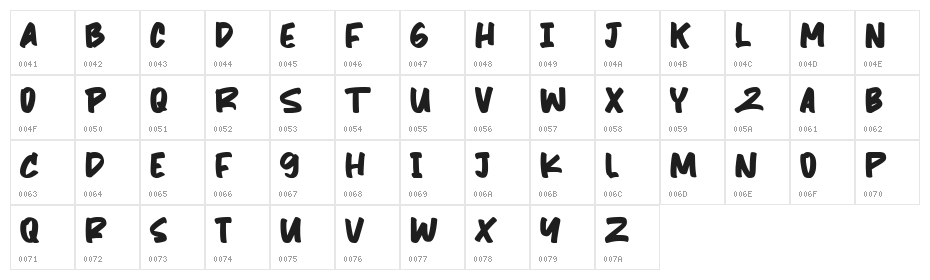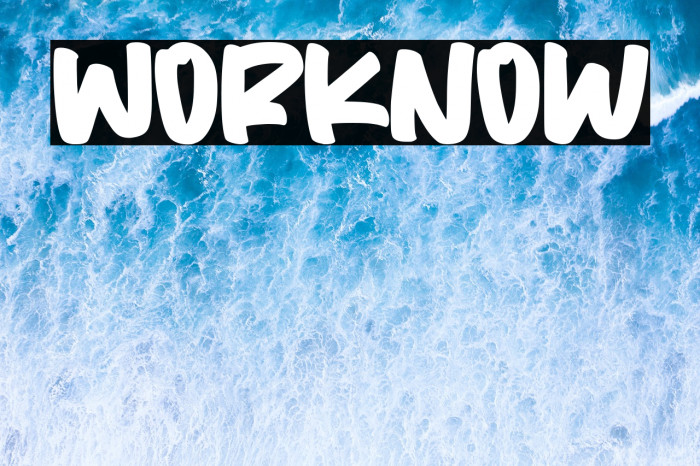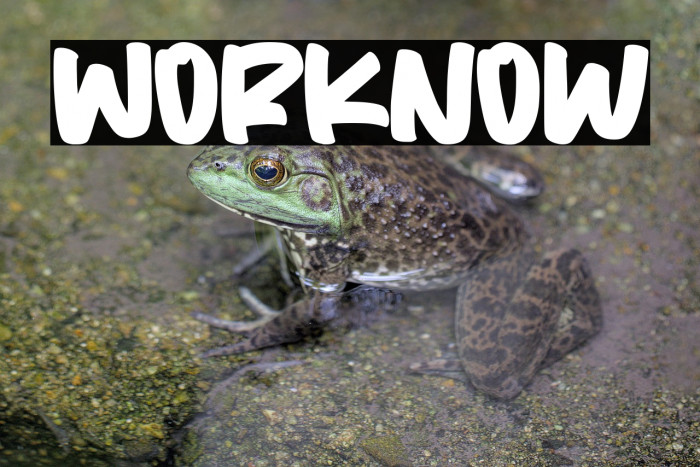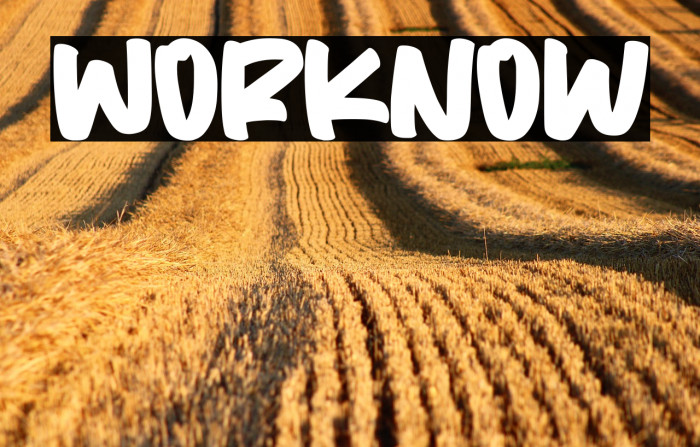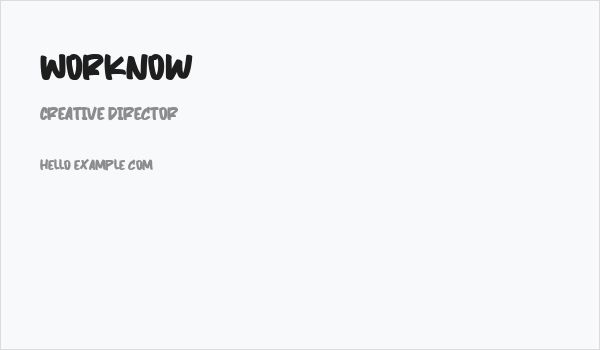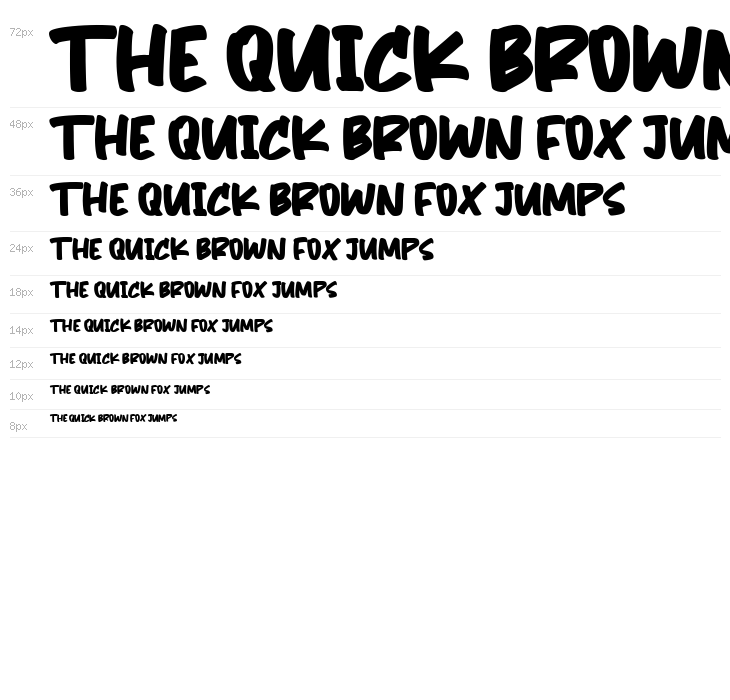
Worknow Font
Worknow Description
This font exudes a bold and energetic vibe, characterized by its thick, rounded strokes and playful, handwritten style. The letters are slightly slanted, giving a dynamic and informal appearance. The uppercase and lowercase characters maintain a consistent weight, contributing to a cohesive look. The numbers and special characters are designed with the same boldness, ensuring uniformity across all elements. The font's casual and friendly demeanor makes it suitable for projects that aim to convey approachability and creativity.
| Overall Style | Playful |
| Proposed Projects | Ideal for children's books, playful branding, casual invitations, and social media graphics. |